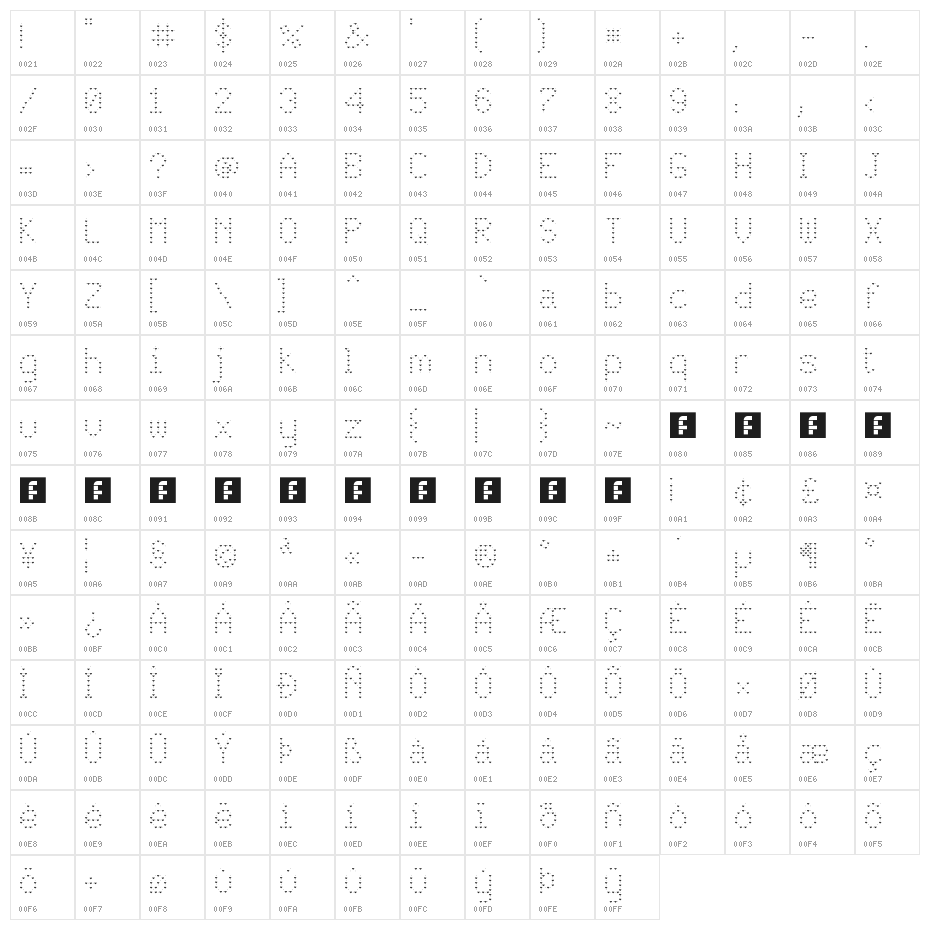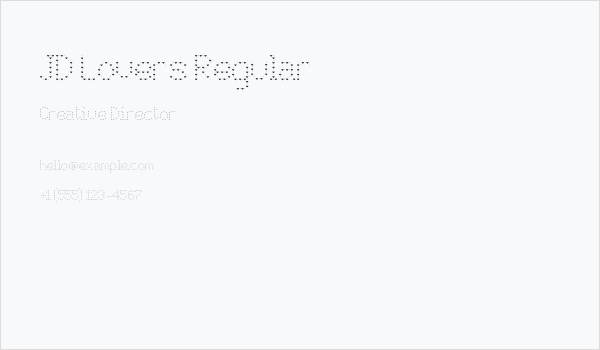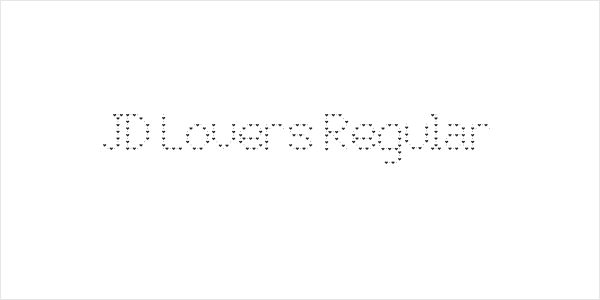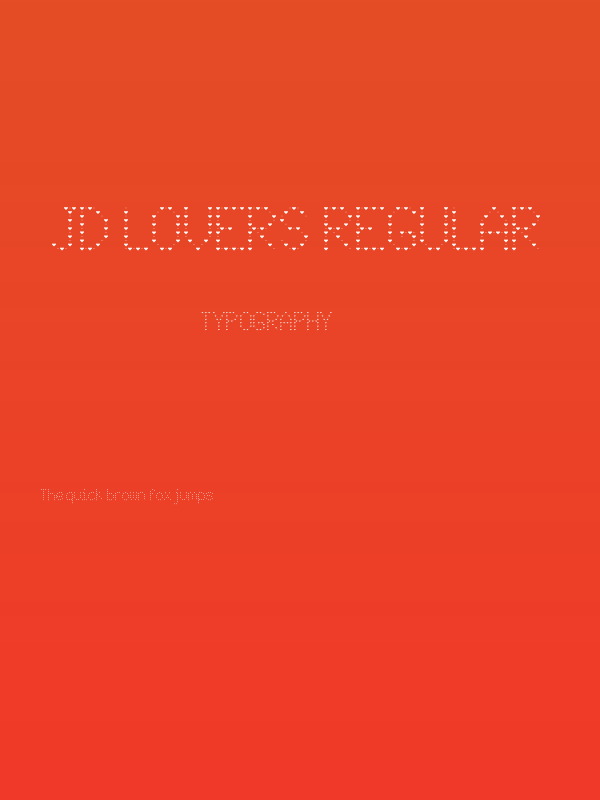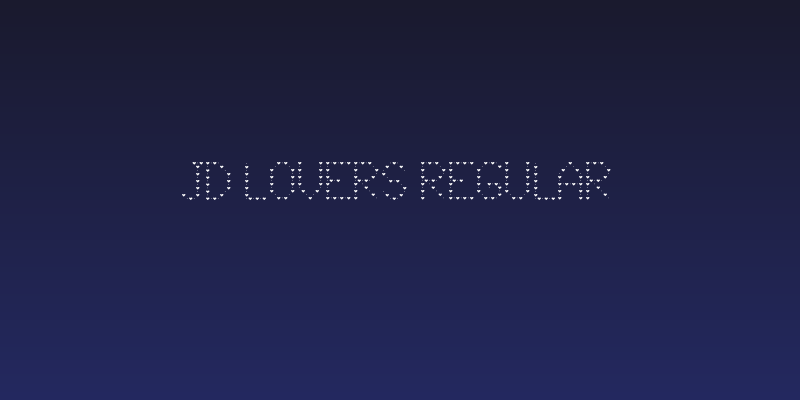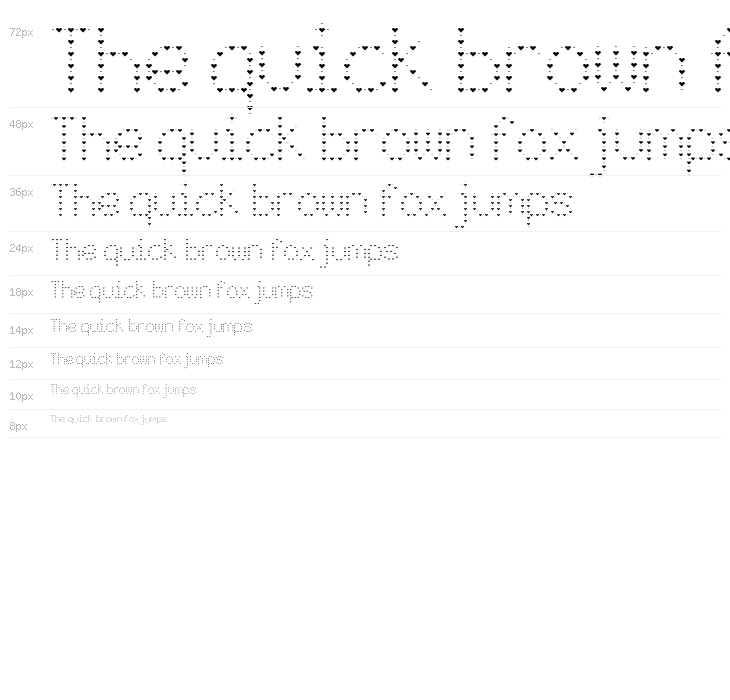
JD Lovers Regular Font
JD Lovers Regular Description
This playful and decorative font is composed entirely of small heart shapes, creating a whimsical and romantic appearance. Each character is carefully crafted with a series of hearts, giving it a unique texture and style. The font maintains a consistent structure across uppercase, lowercase, numbers, and special characters, making it versatile for various design needs. Its charming and distinctive look is perfect for projects that aim to convey love, affection, or a lighthearted theme. The font's design is both eye-catching and memorable, ensuring that any text set in this style will stand out.
| Proposed Projects | Ideal for Valentine's Day cards, wedding invitations, love-themed posters, and playful branding. |